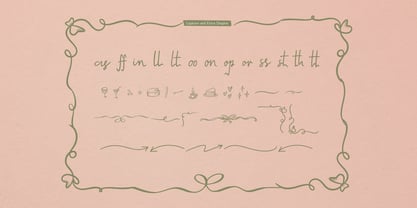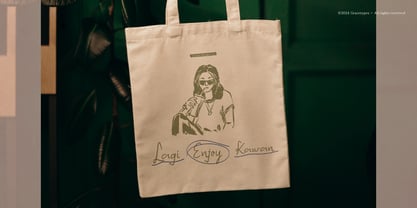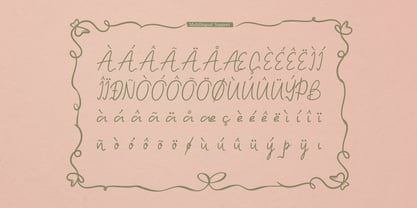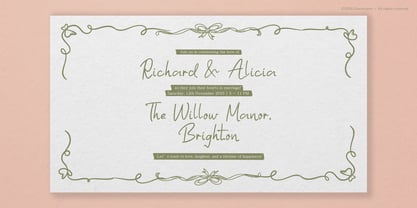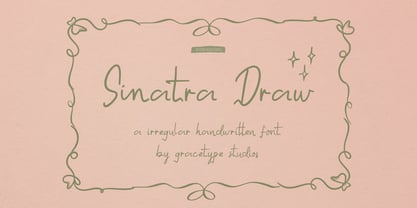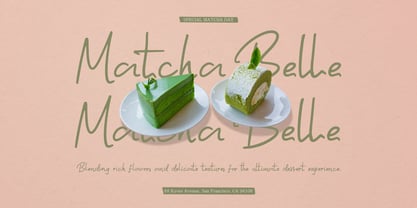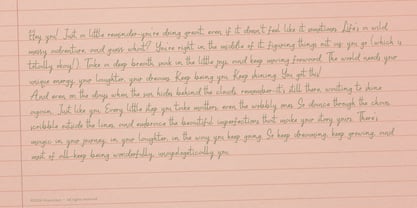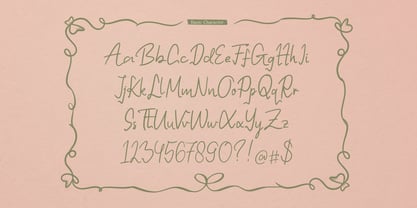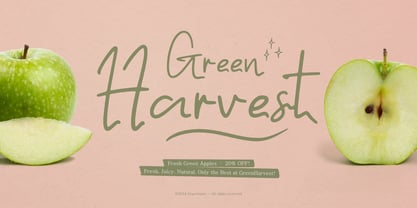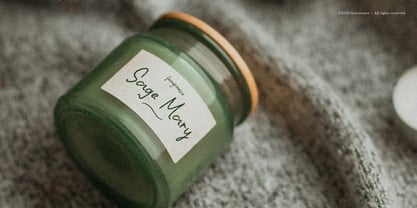
Sinatra Draw
Sinatra Draw | Handwritten Font, from Gracetypestudio, suitable for any projects such as: logos, branding projects, homeware designs, product packaging, mugs, quotes, posters, shopping bags, t-shirts, book covers, name card, invitation cards, greeting cards, label, photography, watermark, special events, and all your other lovely projects that need a Handwritten Font taste.
• Regular and Italic
• Standard glyphs
• Alternate and Ligature
• Fonts include multilingual support